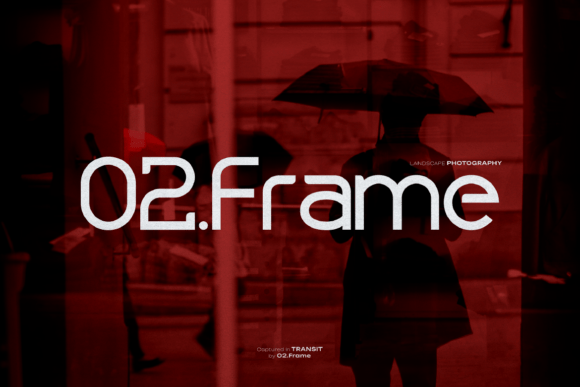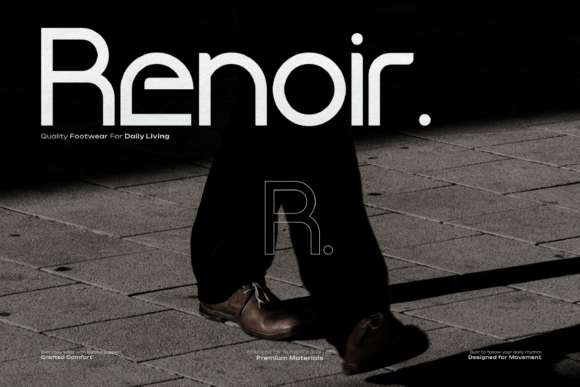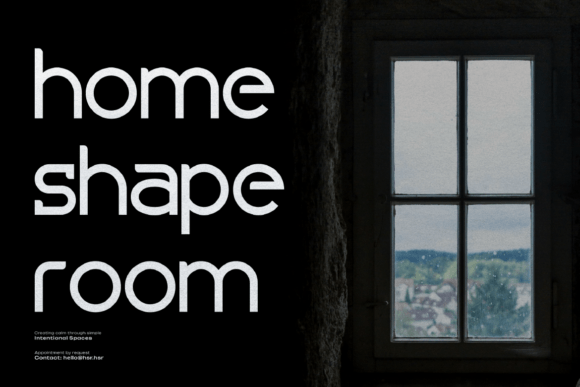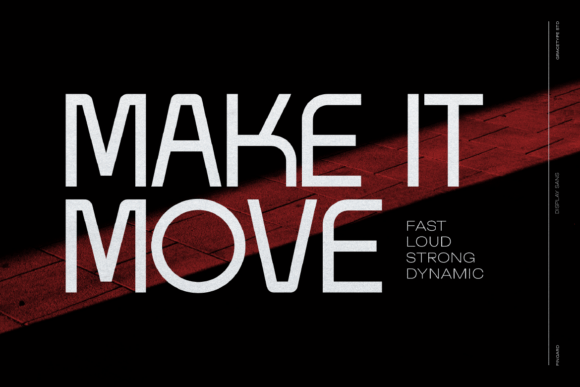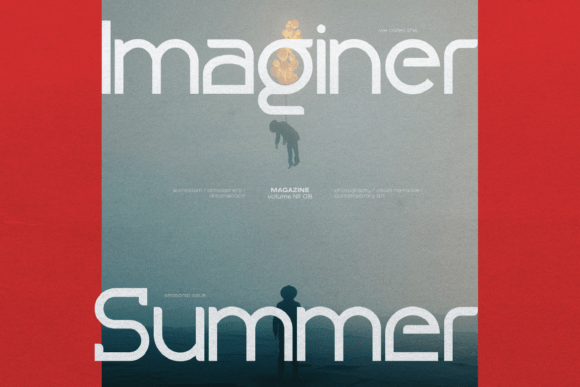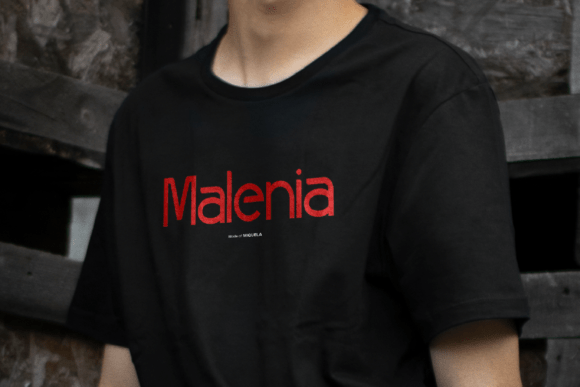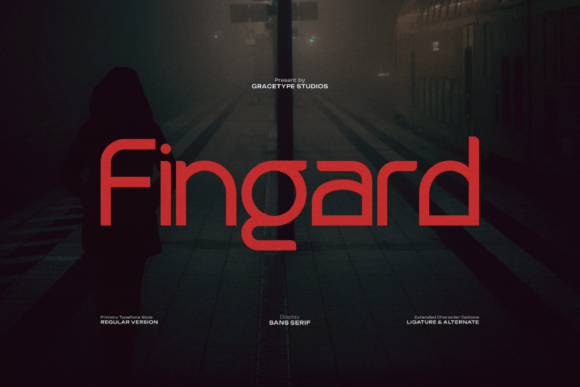
Fingard Font: Elevate Your Design with a Modern and Bold Typeface
In the world of typography, a font can make or break a design. With the Fingard Font, designers and crafters have access to a stunningly modern and extended display sans-serif typeface that’s perfect for making a statement. Developed with high impact and architectural clarity in mind, Fingard is a bold, geometric font that exudes a powerful, minimalist, and contemporary aesthetic.
Unique Characteristics of Fingard Font
So, what sets Fingard apart from other fonts? For starters, its elongated horizontal structure gives it a distinctive look that’s both sleek and sophisticated. The bold, geometric forms of the font are perfect for creating striking logotypes, tech and startup branding, cinematic titles, and poster designs that demand attention. But what really gives Fingard its unique charm are the subtle curves within the straight lines, particularly visible on the ‘g’, ‘a’, and ‘r’. These curves add a touch of elegance and futurism to the font, making it perfect for designers who want to create a modern and forward-thinking presence.
Perfect for High-Impact Designs
Fingard is a versatile font that can be used in a variety of design applications. Its clean and strong lines make it perfect for:
- Striking Logotypes: Create a lasting impression with a bold and memorable logotype that showcases your brand’s personality.
- Tech and Startup Branding: Give your brand a modern and innovative feel with a font that’s perfect for tech and startup companies.
- Cinematic Titles: Add a touch of sophistication and glamour to your film or video titles with Fingard’s bold and geometric forms.
- Poster Design: Create eye-catching posters that demand attention with a font that’s designed to make a statement.
Why Choose Fingard Font?
With so many fonts available, why choose Fingard? Here are just a few reasons why designers and crafters love this modern typeface:
- Universality: Fingard is a versatile font that can be used in a variety of design applications, from branding and advertising to film and video production.
- Legibility: The font’s clean and strong lines make it easy to read, even at large sizes.
- Uniqueness: Fingard’s subtle curves and geometric forms give it a distinctive look that’s both modern and sophisticated.
- Flexibility: The font’s bold and minimalist aesthetic makes it perfect for use in a variety of design contexts, from digital to print.
Tips for Using Fingard Font
To get the most out of Fingard, here are a few tips to keep in mind:
- Use it boldly: Fingard is a font that’s designed to make a statement, so don’t be afraid to use it in bold and eye-catching ways.
- Experiment with colors: The font’s clean and strong lines make it perfect for use with a variety of colors and textures.
- Pair it with other fonts: Fingard can be paired with a variety of other fonts to create a unique and visually appealing typography.
In conclusion, Fingard Font is a stunningly modern and extended display sans-serif typeface that’s perfect for designers and crafters who want to create a bold and eye-catching design. With its unique characteristics, versatility, and legibility, Fingard is a font that’s sure to elevate your design and make a lasting impression.